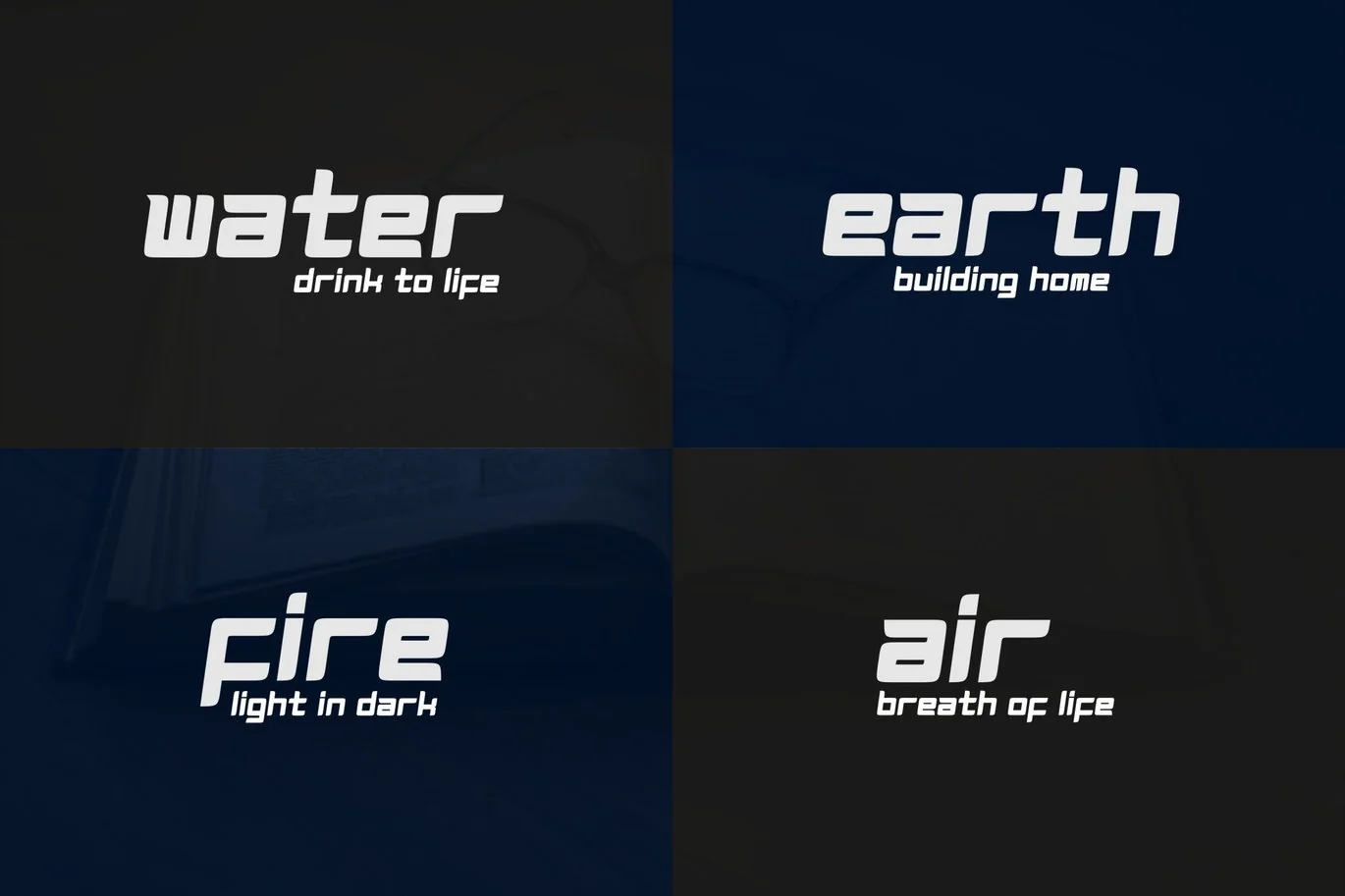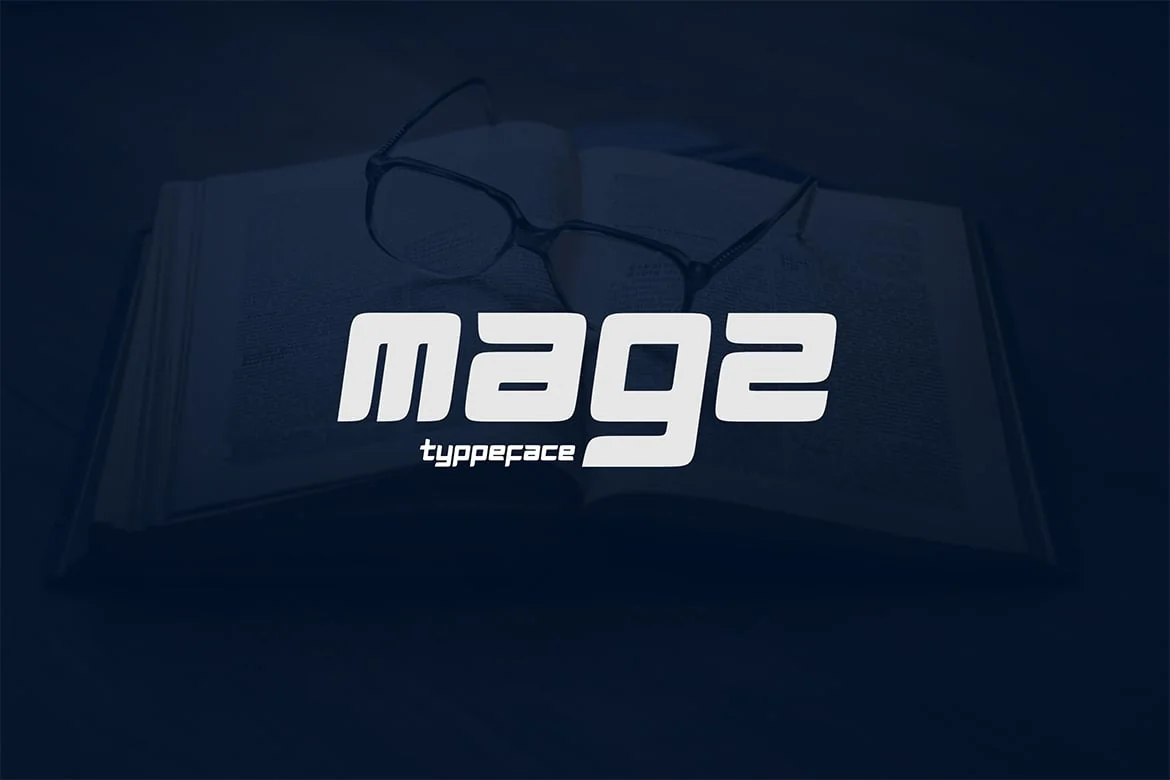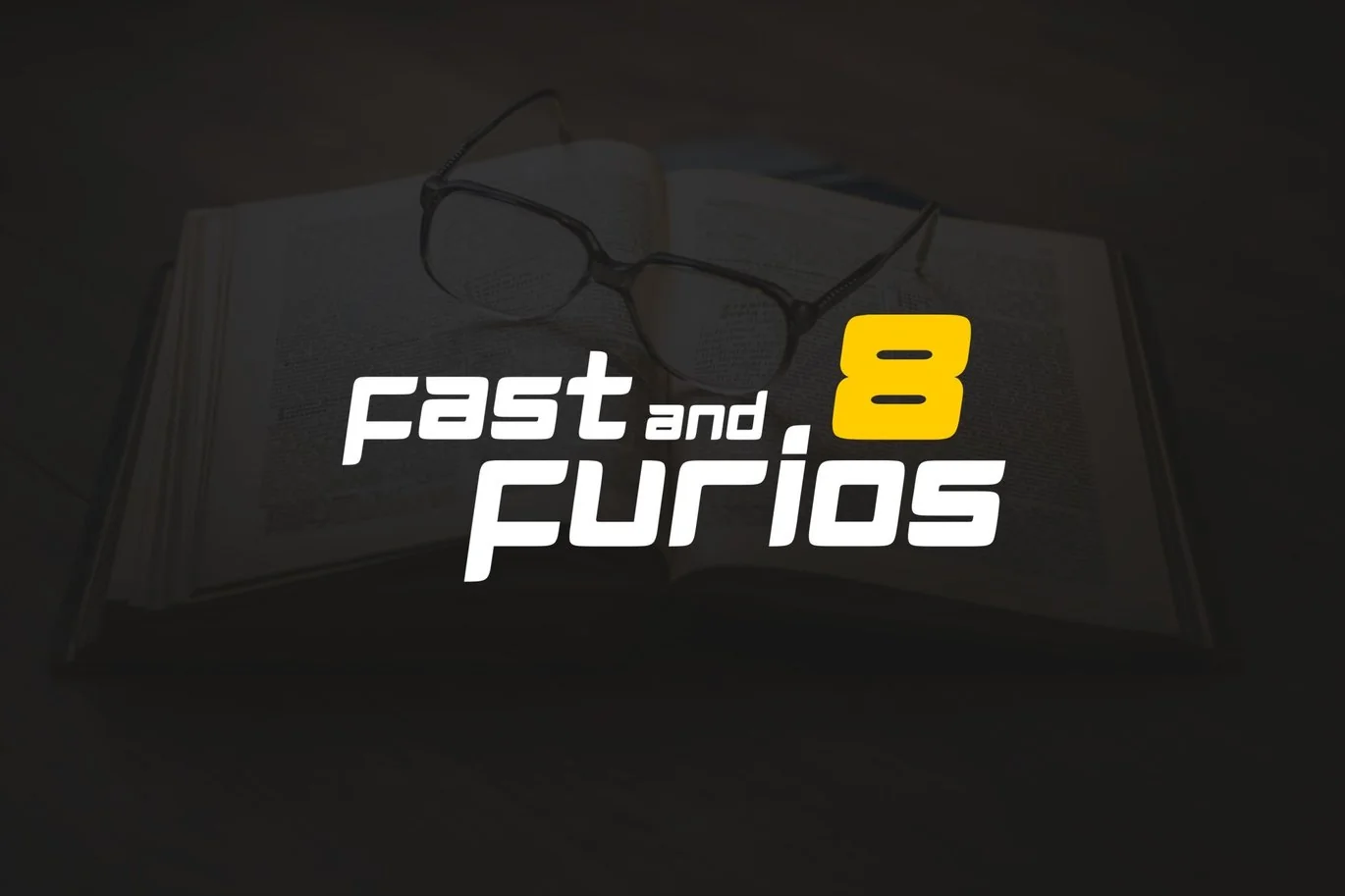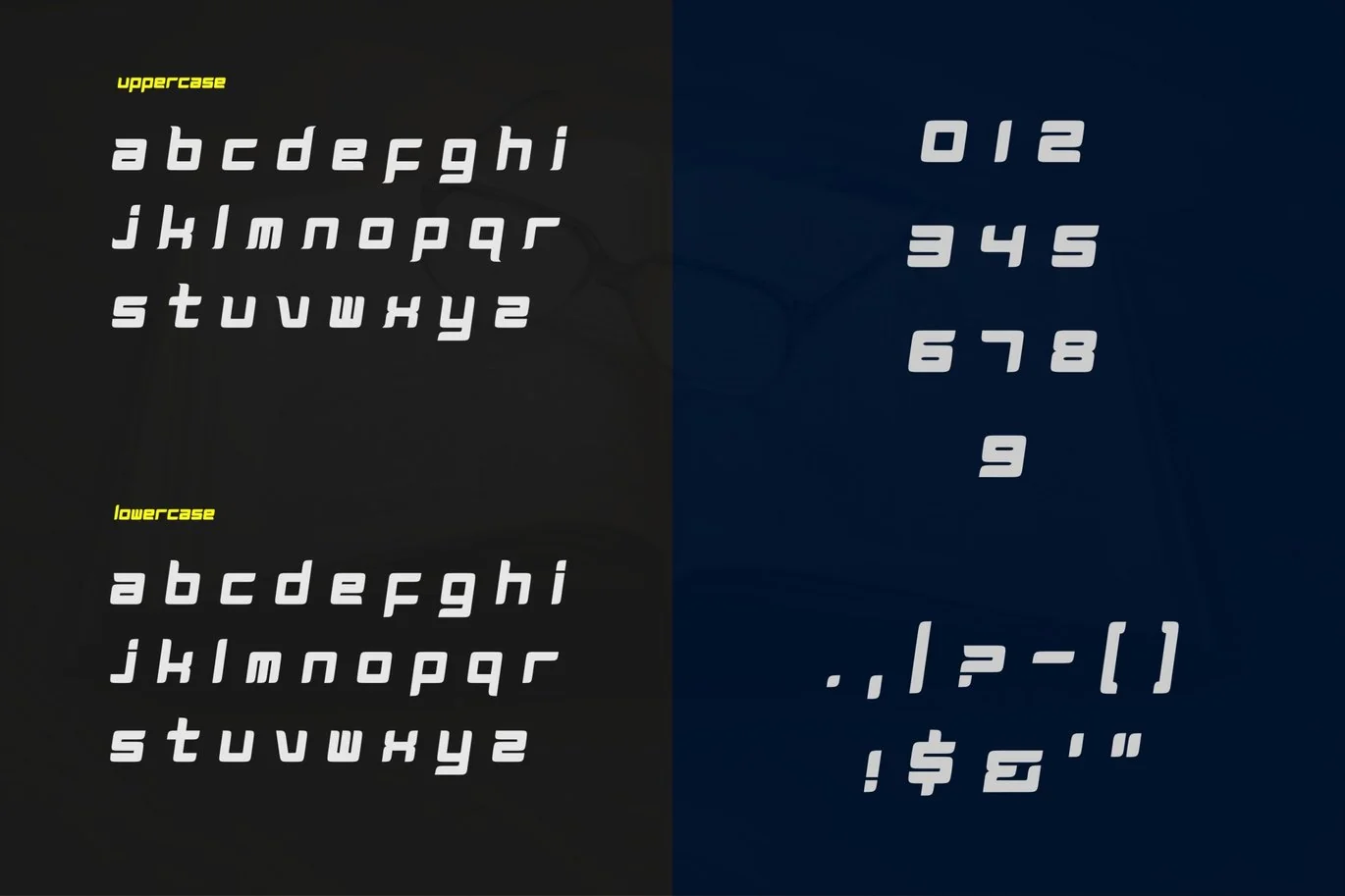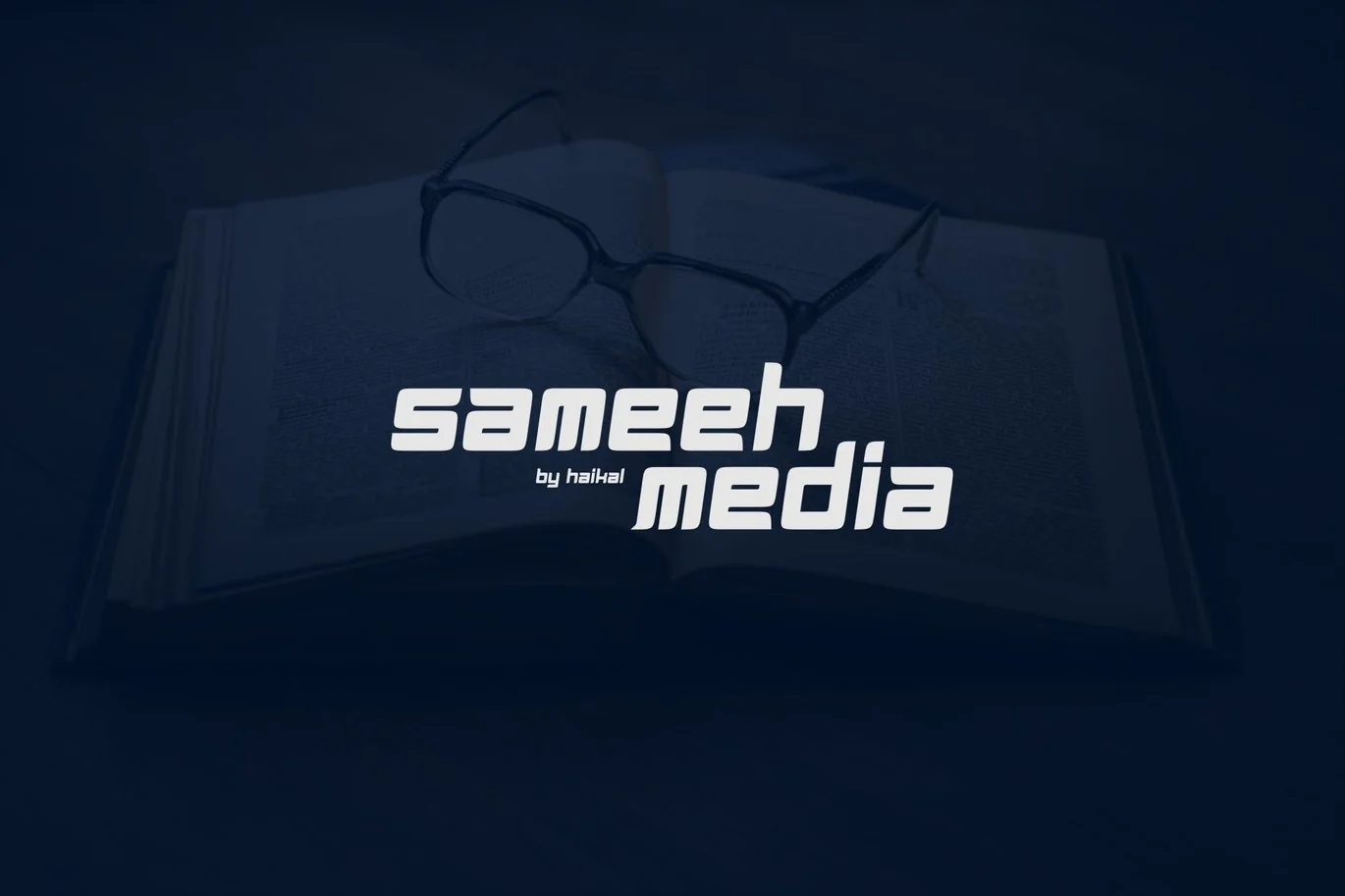
Magz Typeface Font
Well, today we will present a font that is very fresh and unique. This font is very smooth and beautiful for you commercial work. This font deliberately created with the hope of adding a collection of products for your design work.